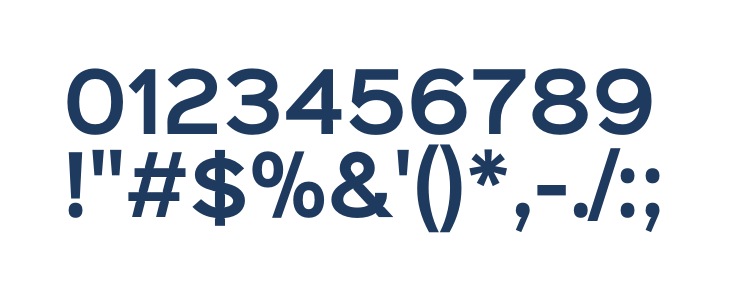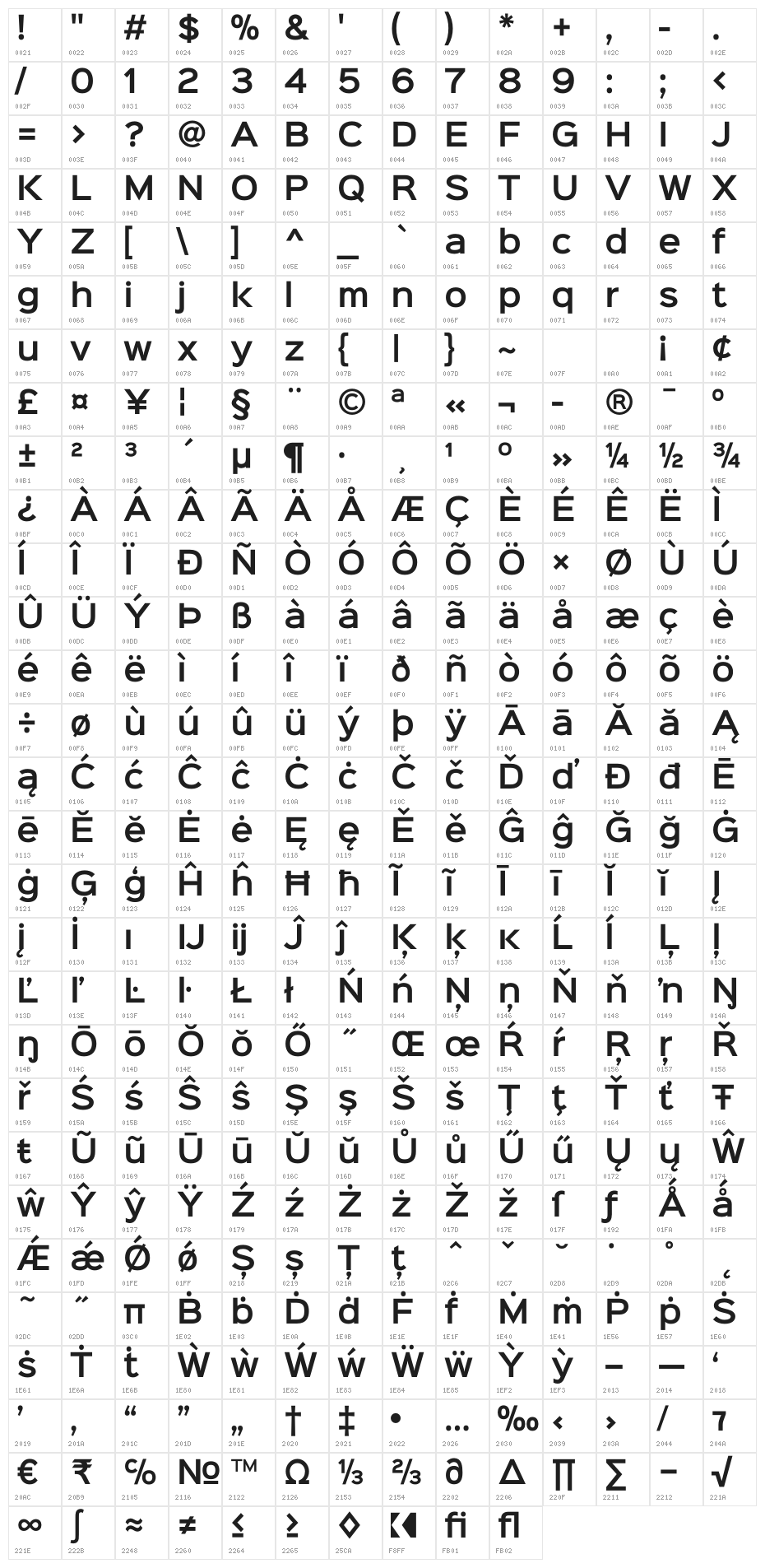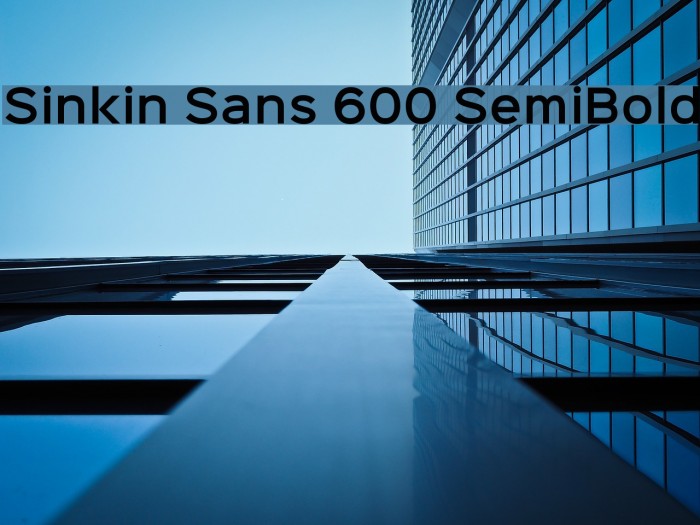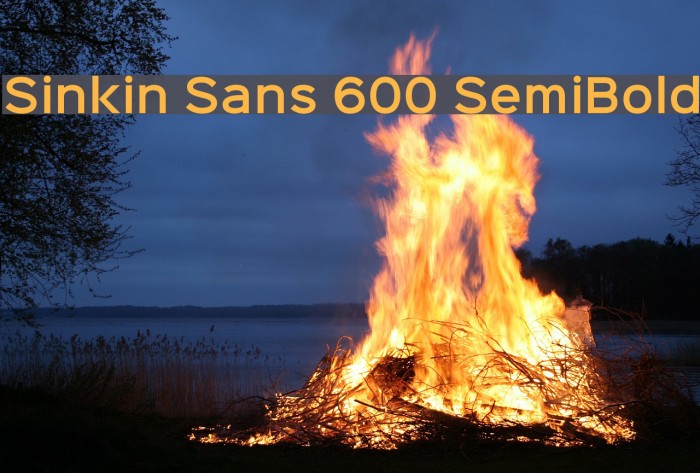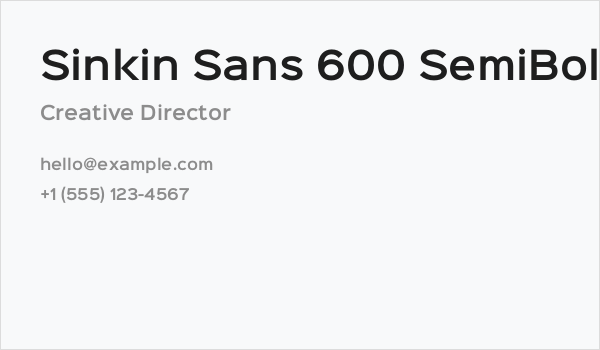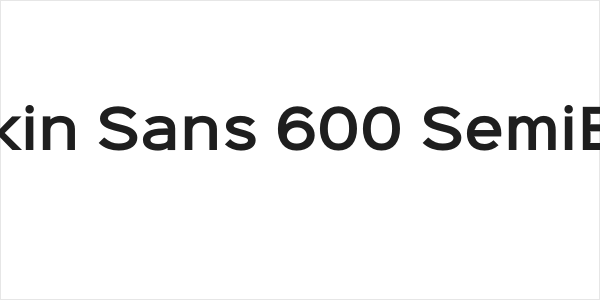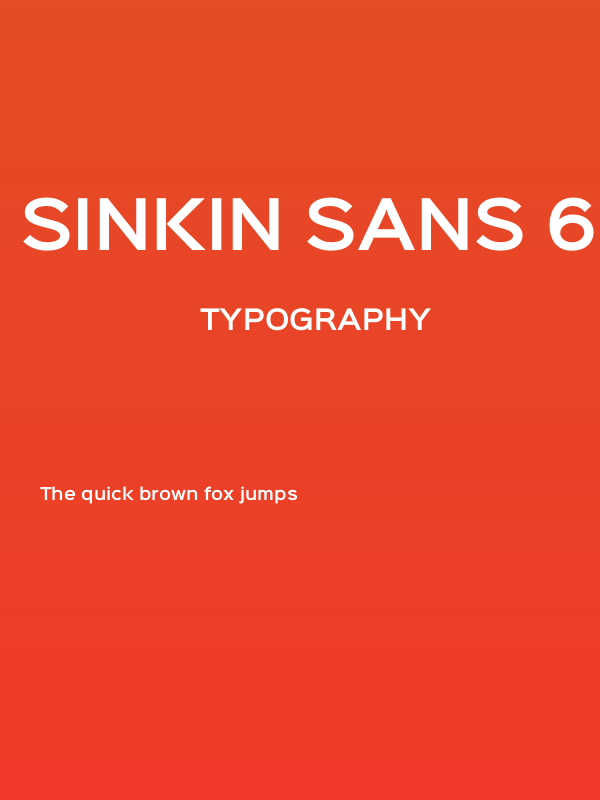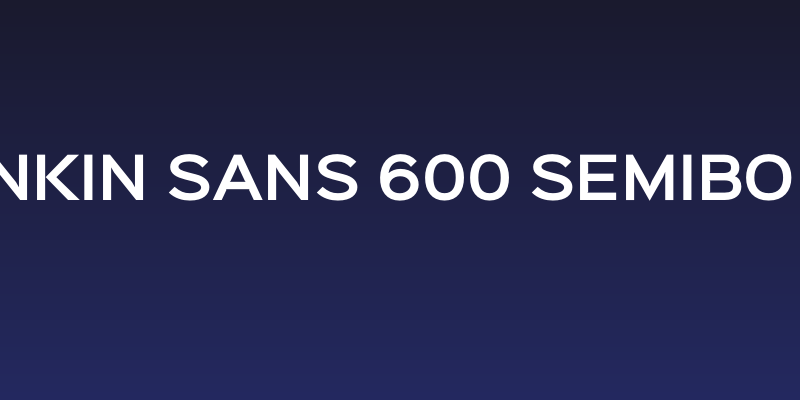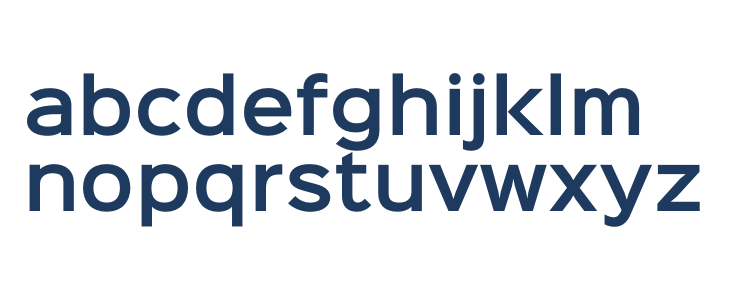
Sinkin Sans 600 SemiBold Font
Sinkin Sans 600 SemiBold Description
This font presents a clean and modern sans-serif style with a semi-bold weight, offering a balanced and versatile appearance. The characters are well-proportioned, with a uniform stroke width that provides a harmonious and consistent look. The uppercase letters are bold and assertive, while the lowercase letters maintain a friendly and approachable feel. The numerals are clear and easily distinguishable, making them suitable for various applications. The special characters are designed with the same attention to detail, ensuring they integrate seamlessly with the rest of the typeface.
| Proposed Projects | Ideal for branding, web design, advertising, and editorial projects where clarity and modernity are essential. |